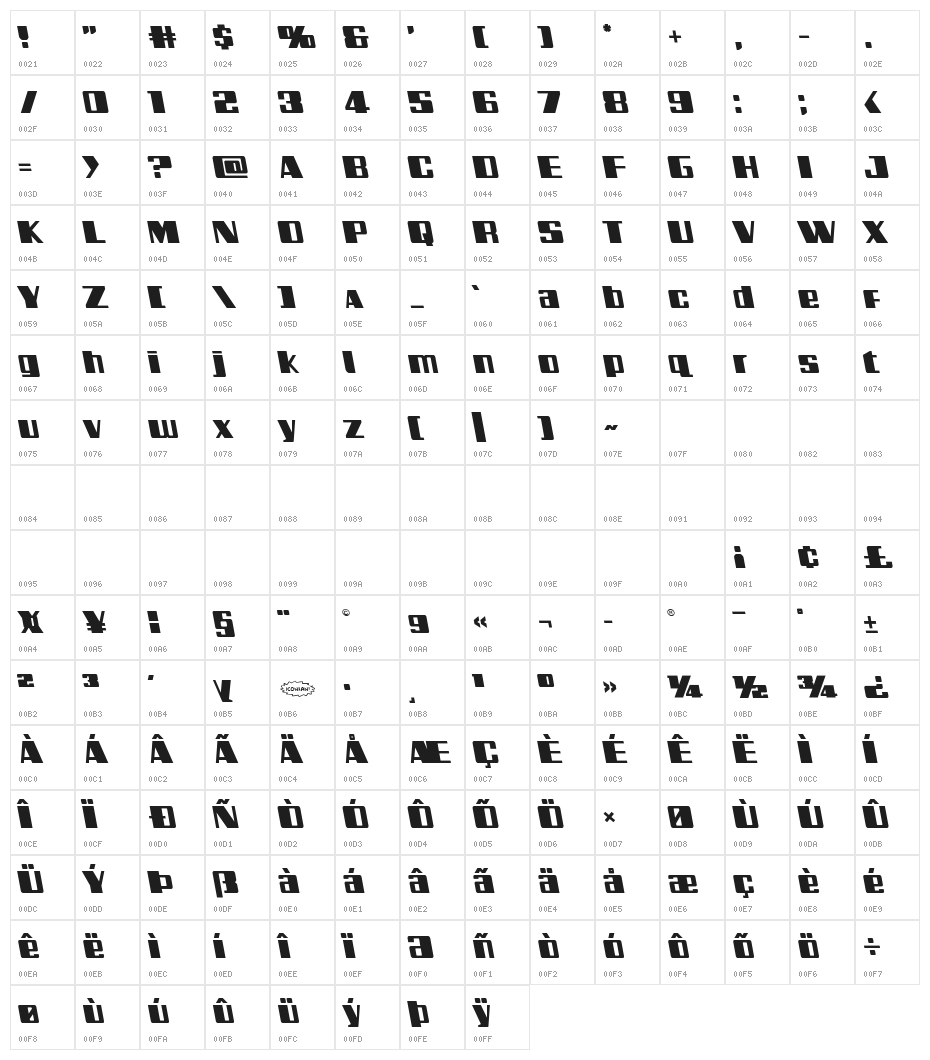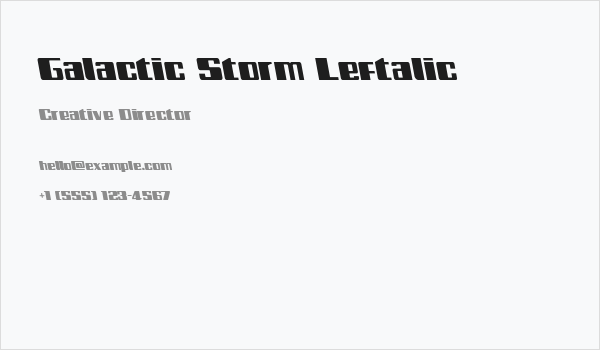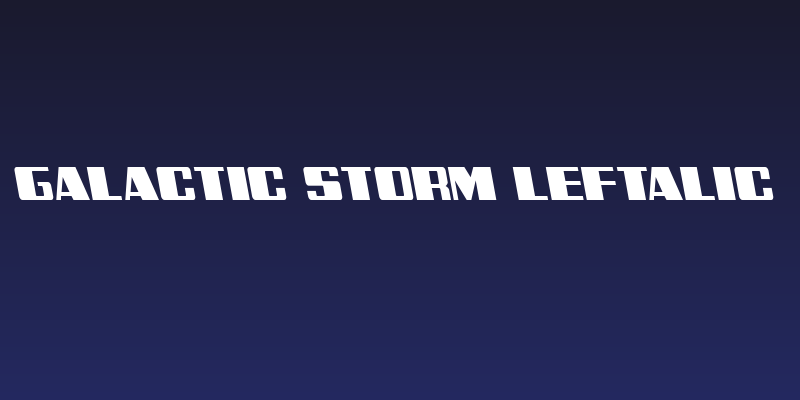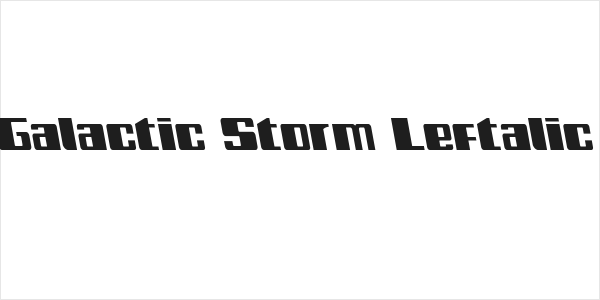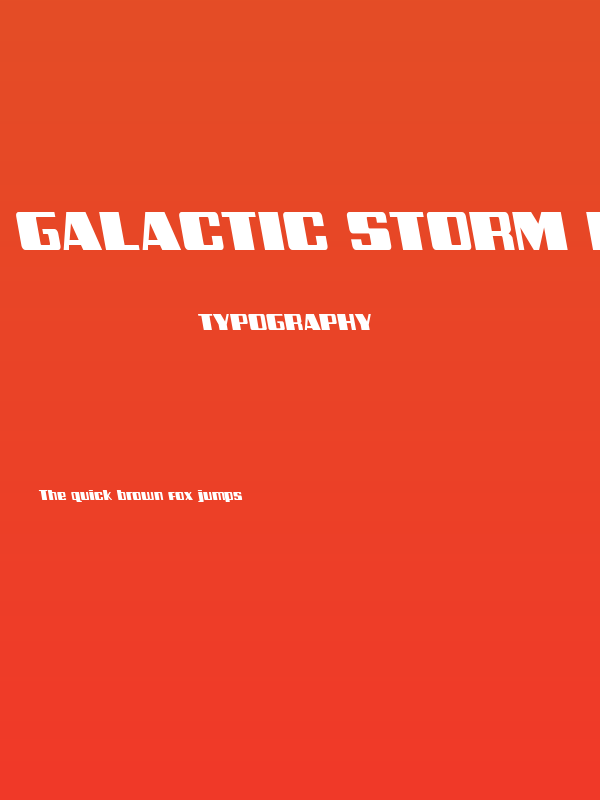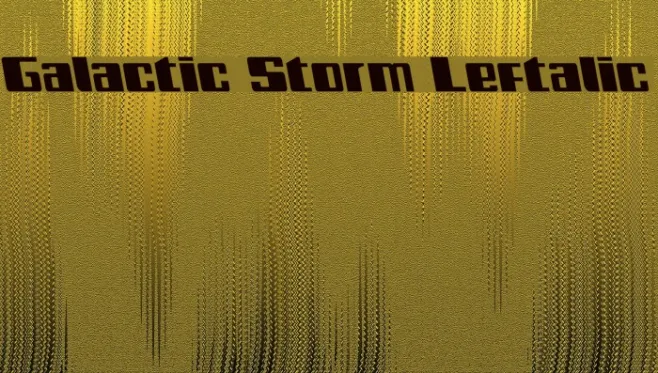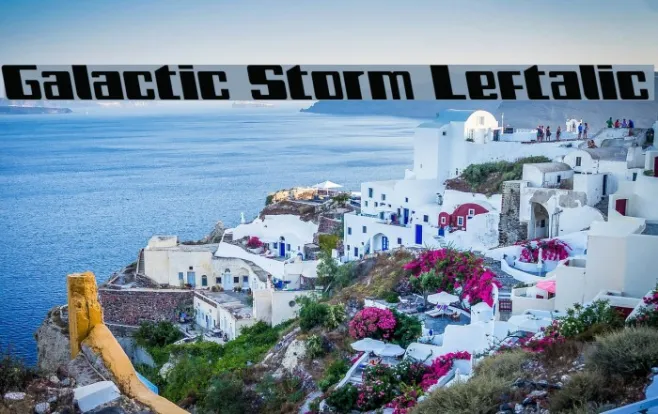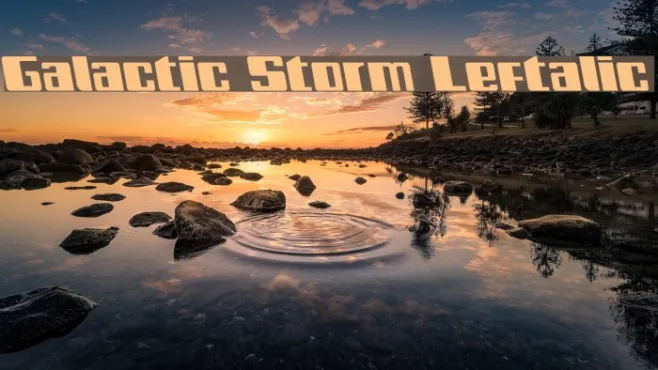
Galactic Storm Leftalic Font
Galactic Storm Leftalic Description
This font features a bold, futuristic design with a distinct slant to the left, giving it a dynamic and energetic appearance. The characters are wide and blocky, with sharp angles and a strong presence. The uppercase and lowercase letters maintain a consistent style, while the numerals and special characters complement the overall aesthetic. The font's boldness and unique slant make it stand out, ideal for projects that require a modern and impactful look.
| Proposed Projects | Ideal for sci-fi themed posters, video game titles, technology branding, and dynamic logo designs. |